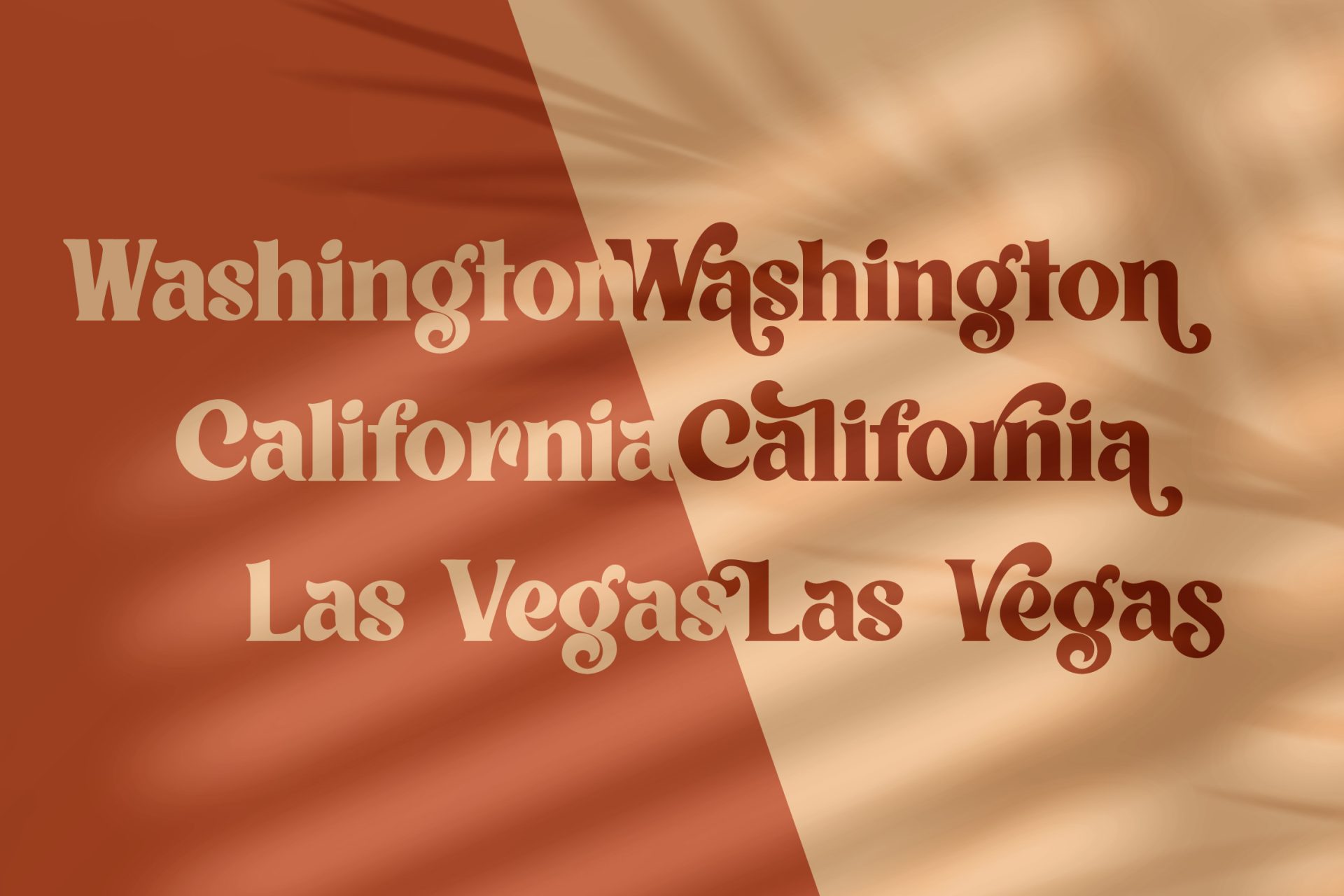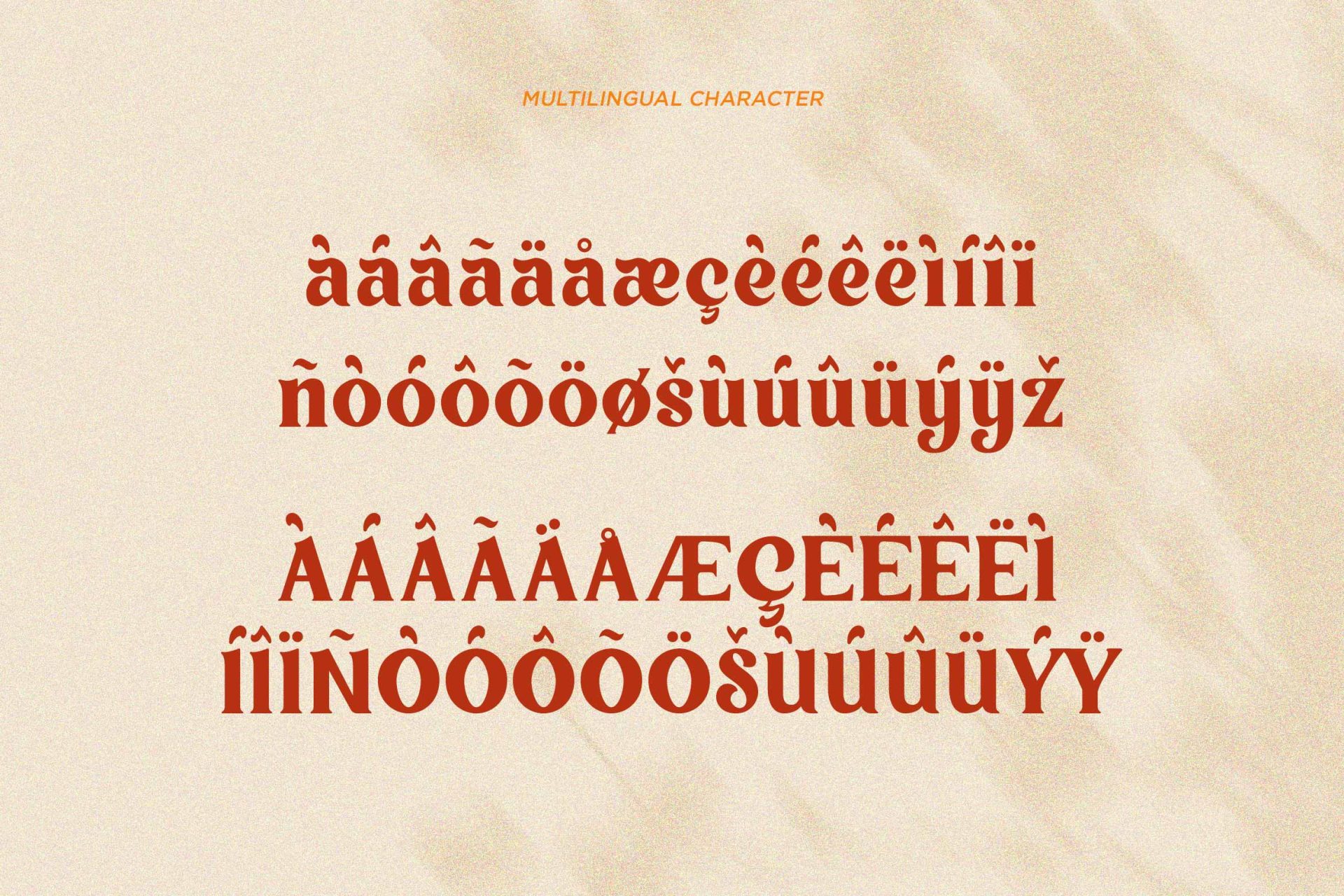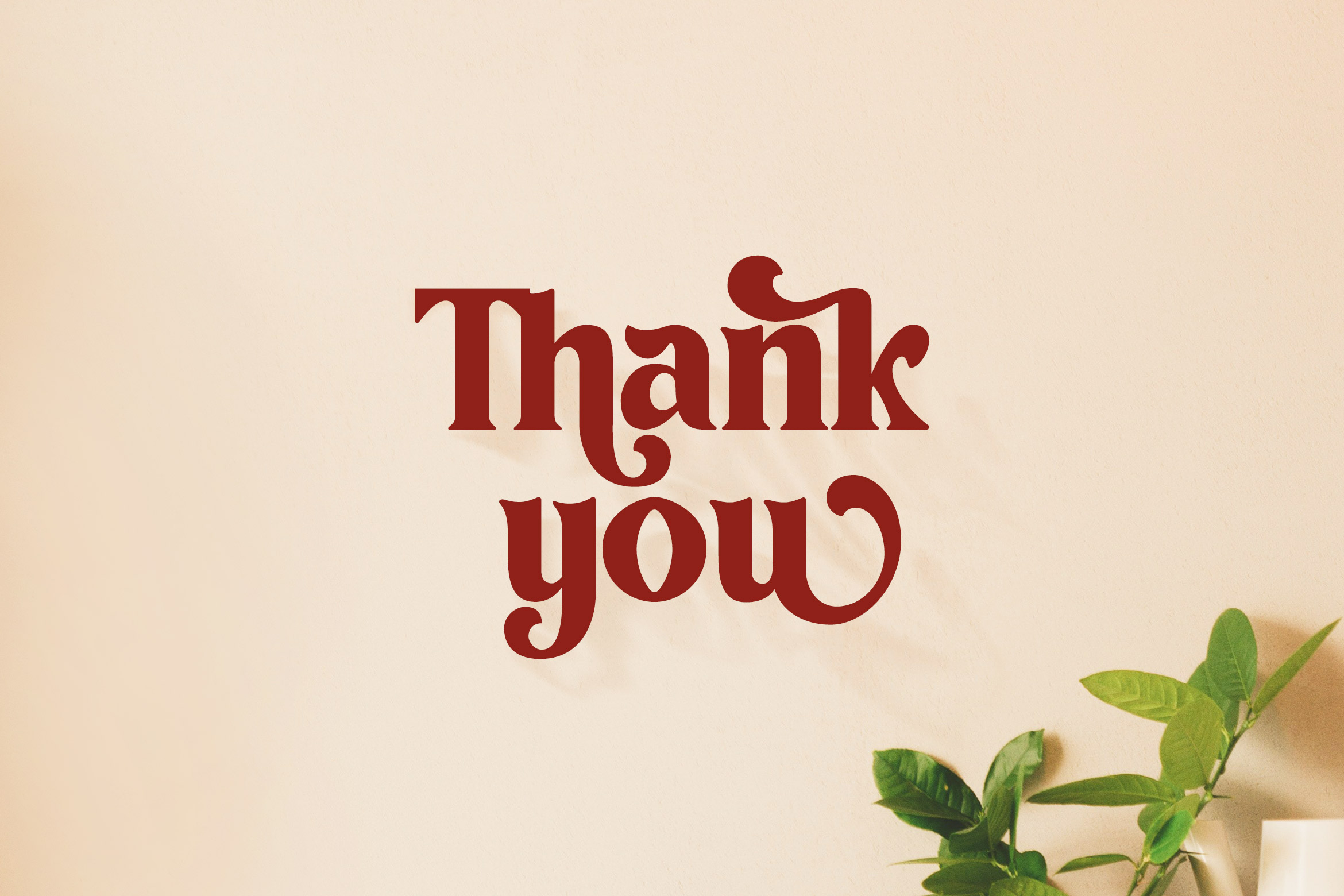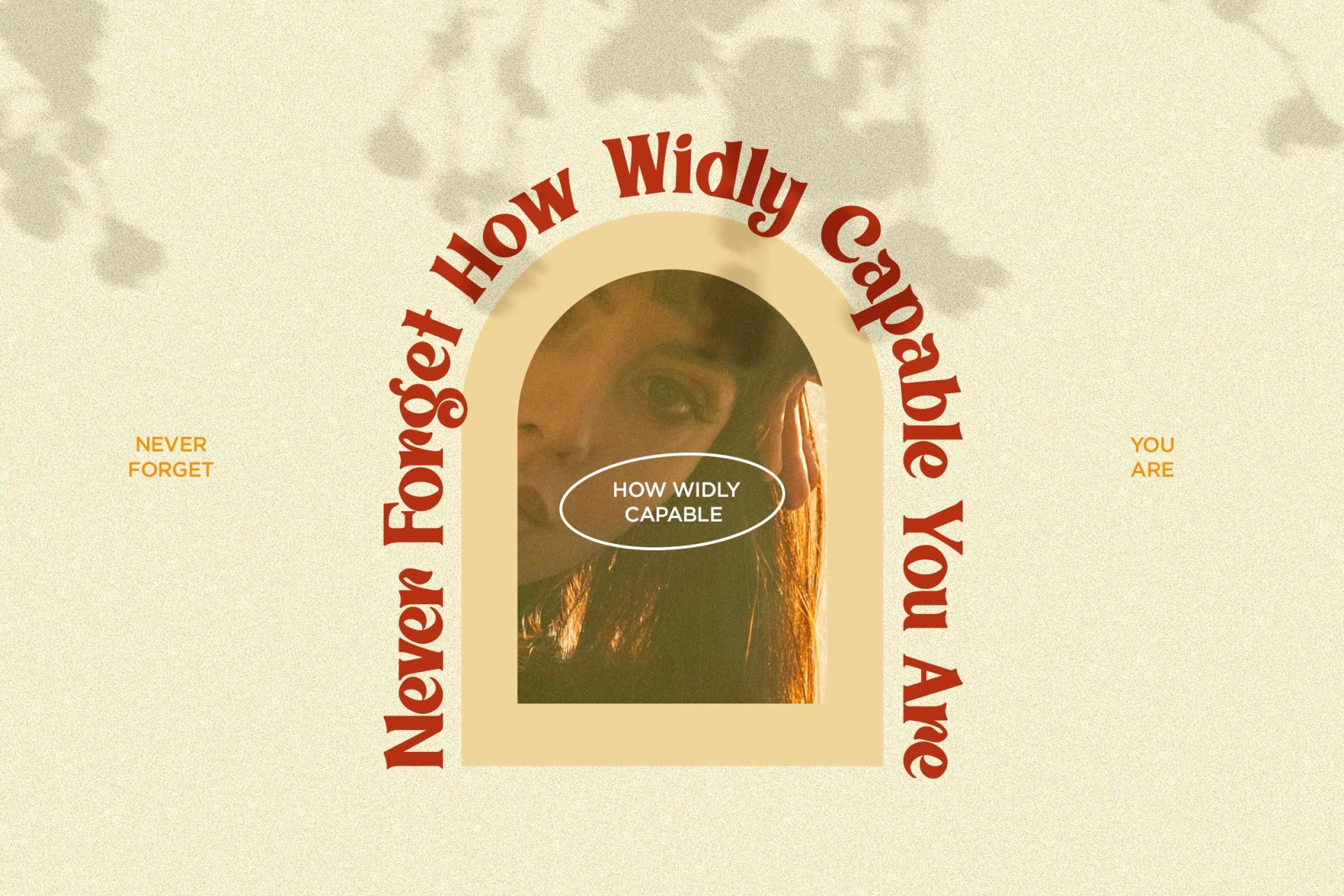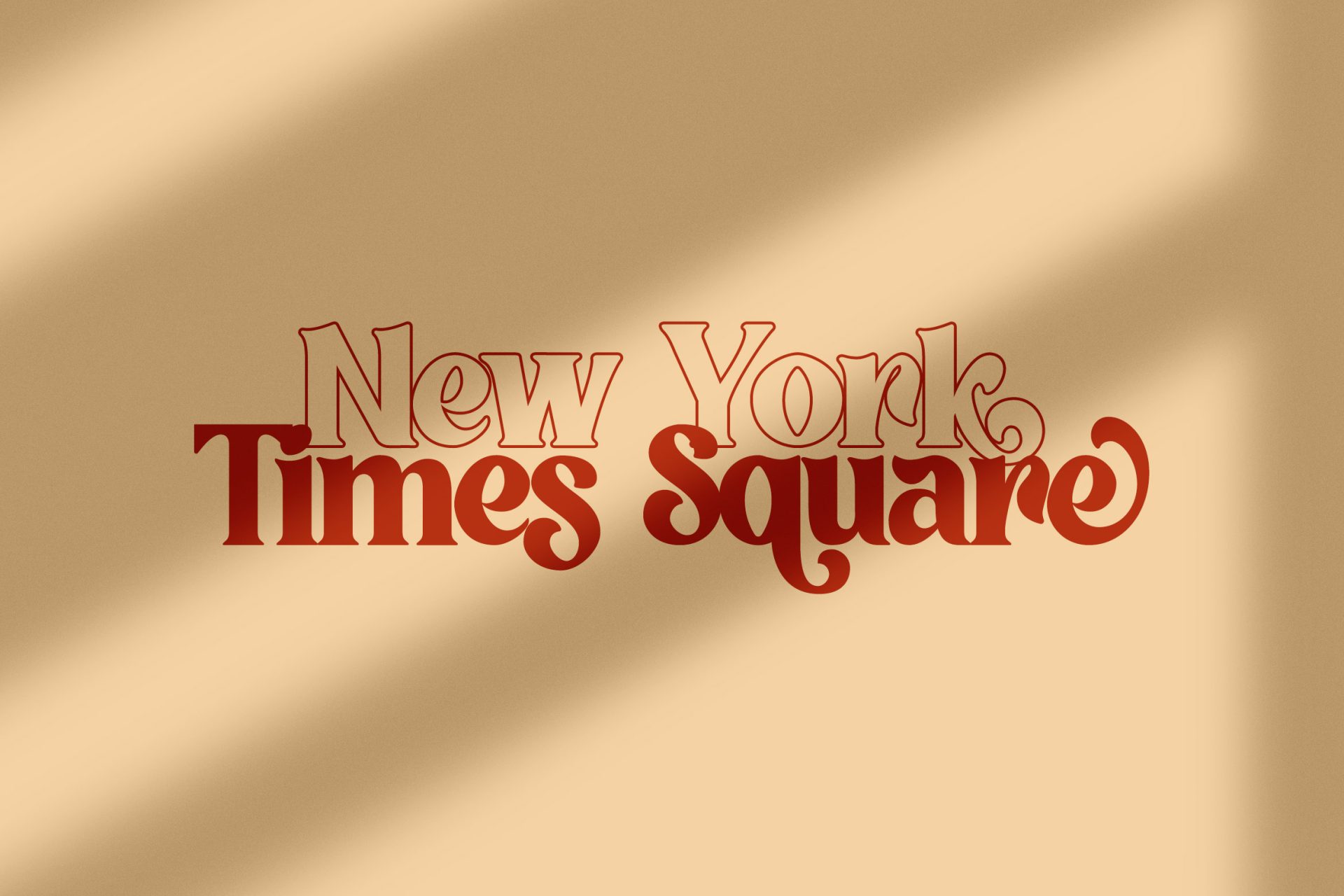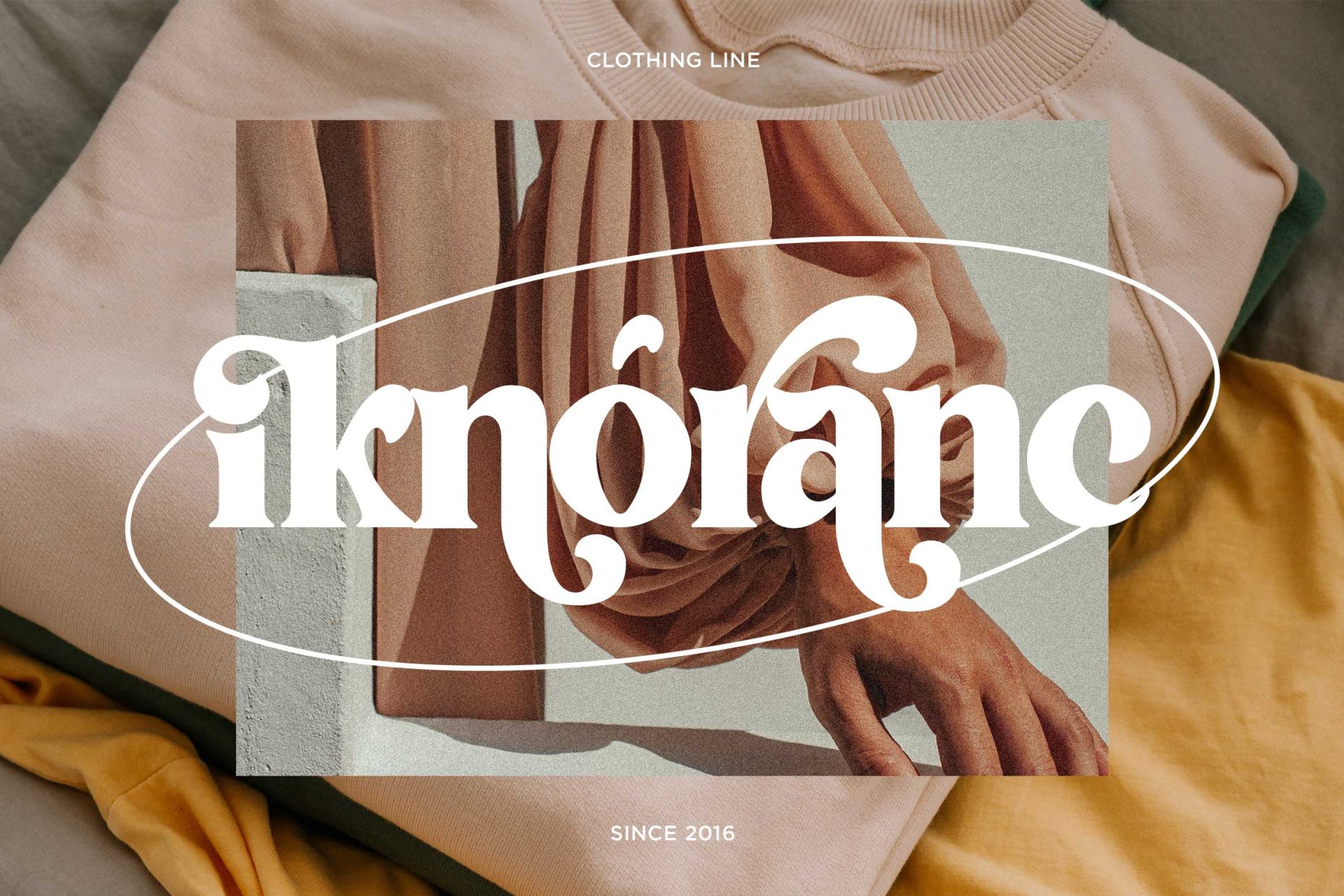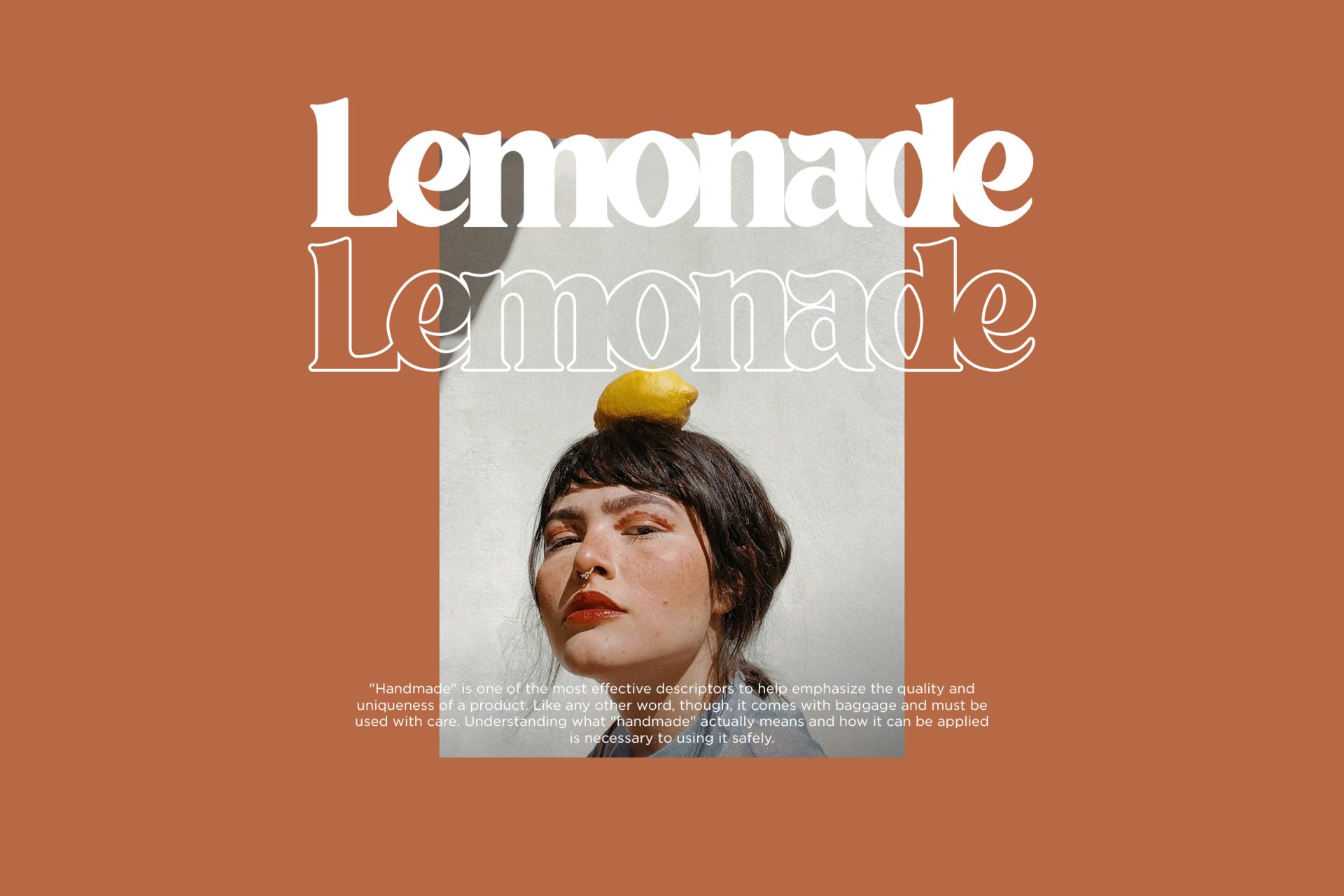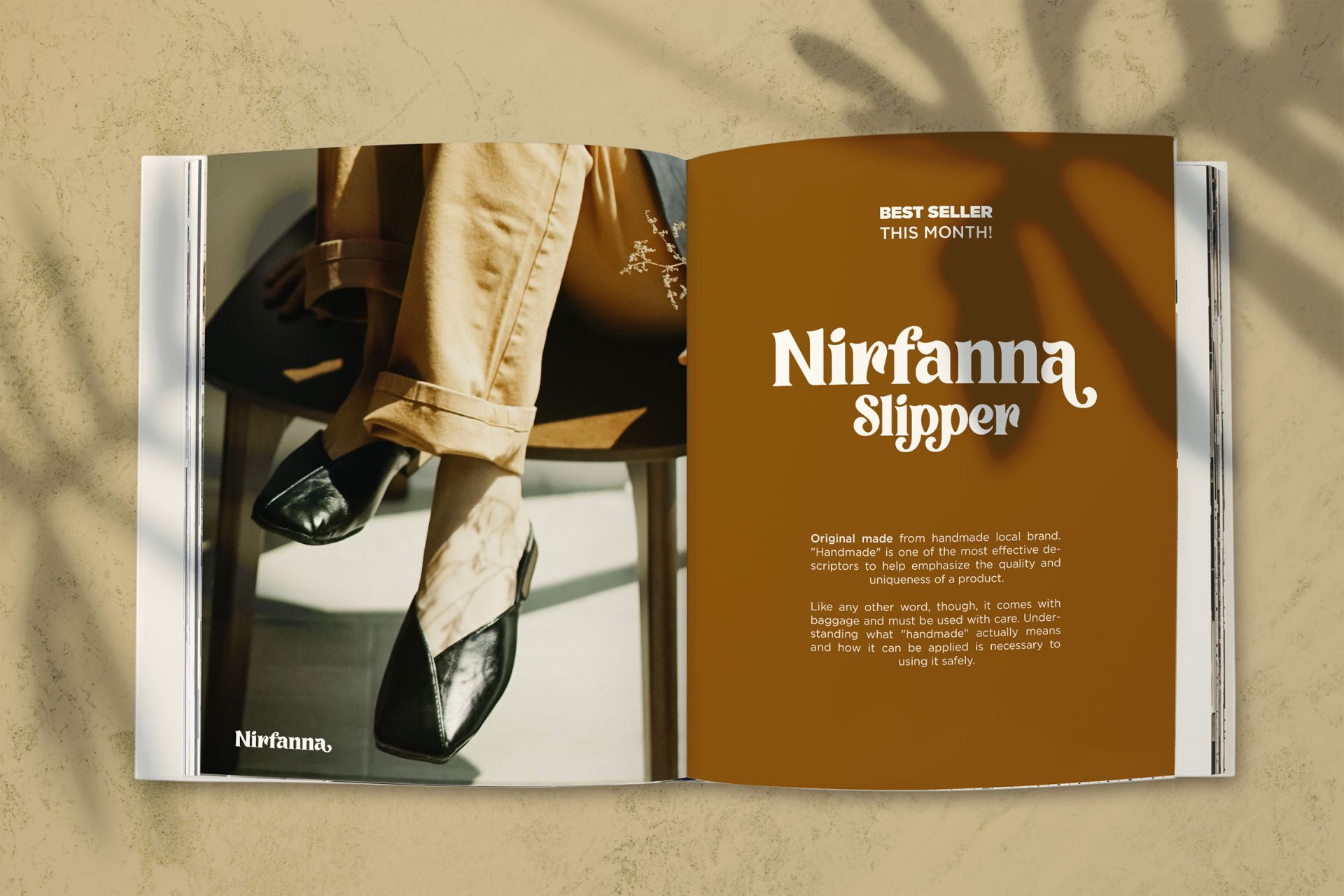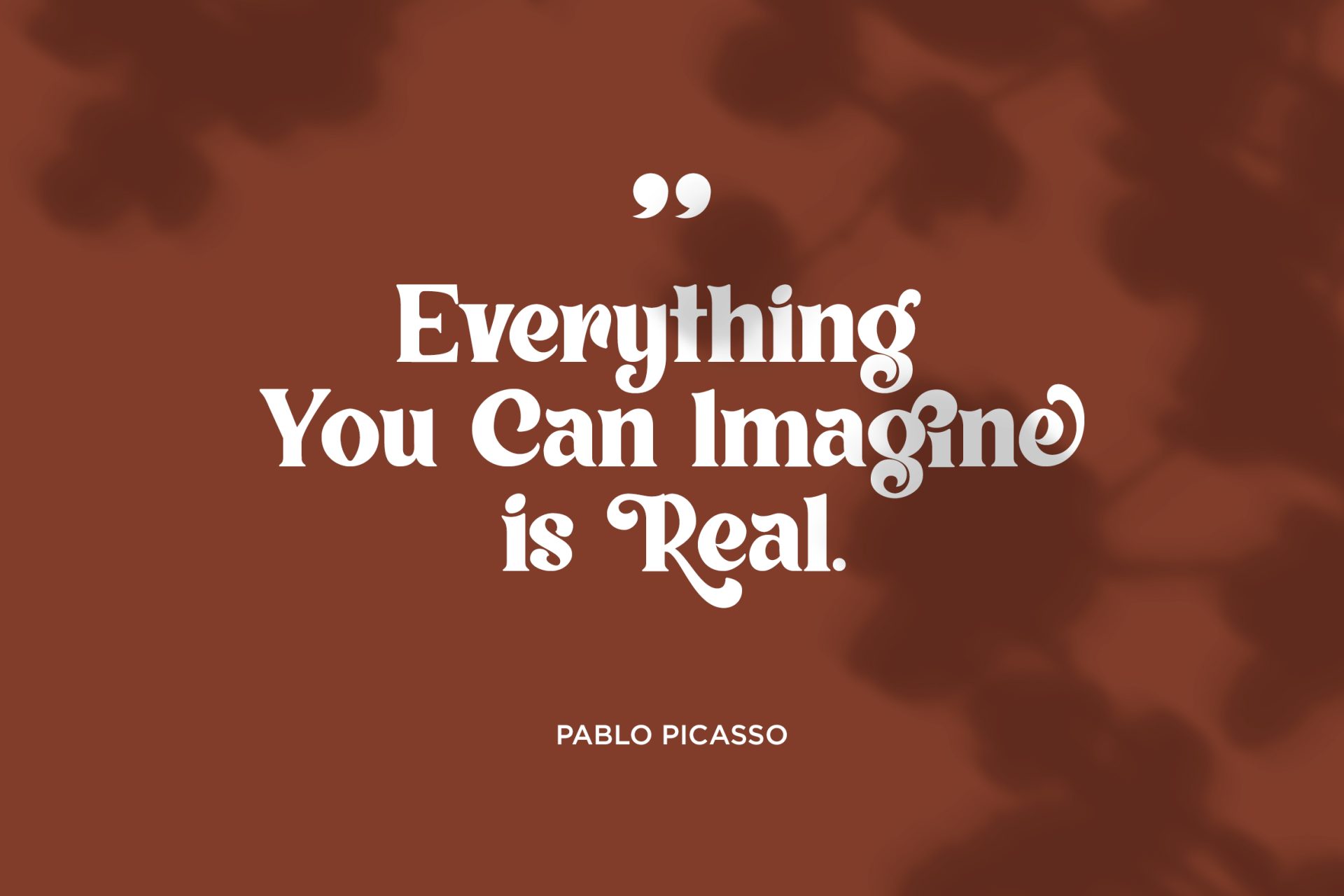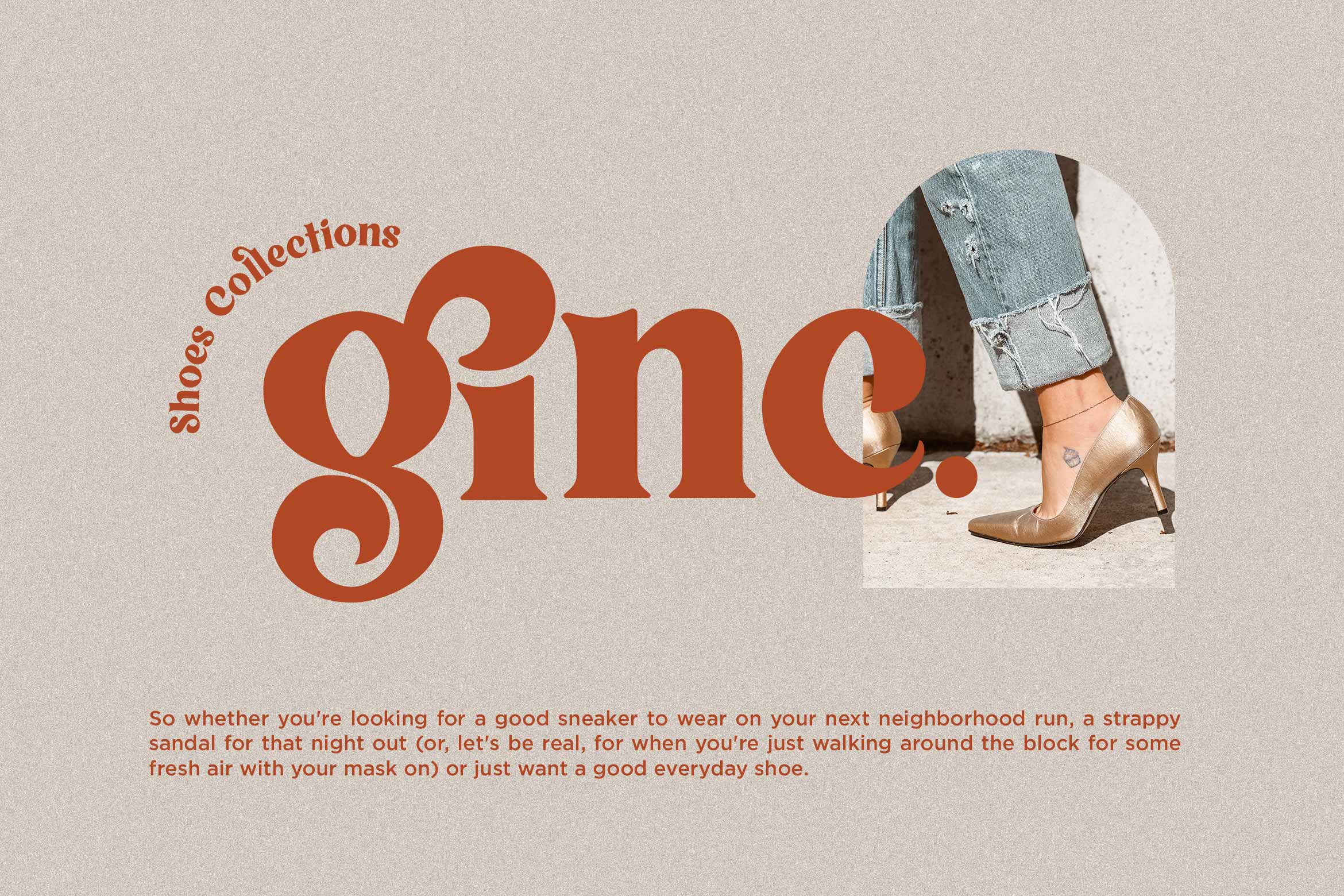
Vigallse – Vintage Modern Serif Typeface. It has vintage, modern, classic & elegant. It’s a great font for fashion, apparel projects, signature, album cover, logo, branding, magazine, social media, & advertisements, but also works great for other projects.